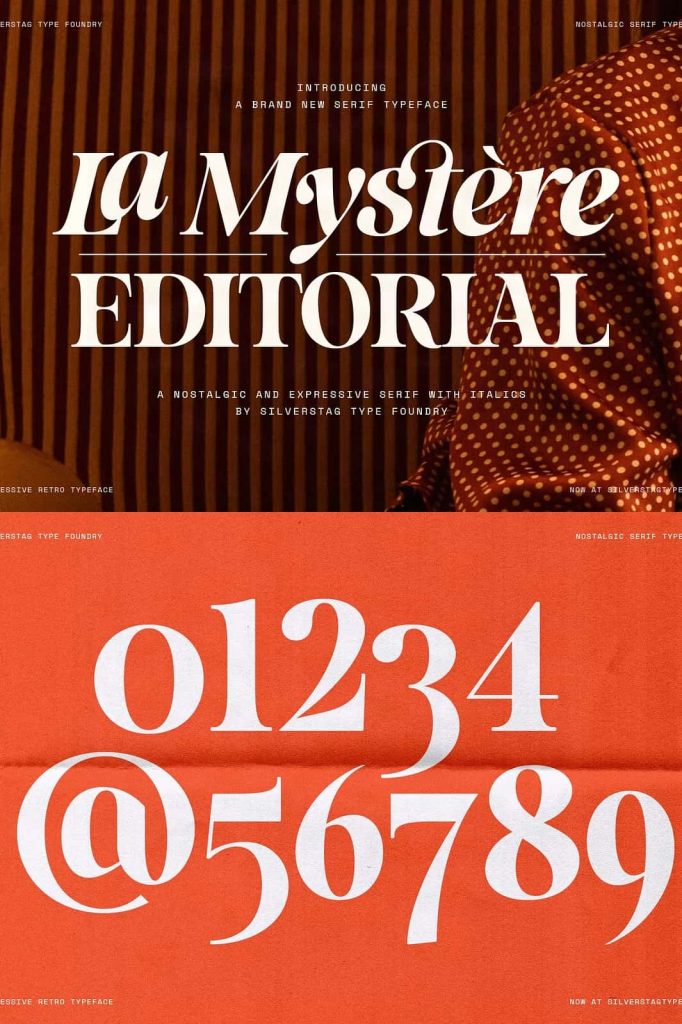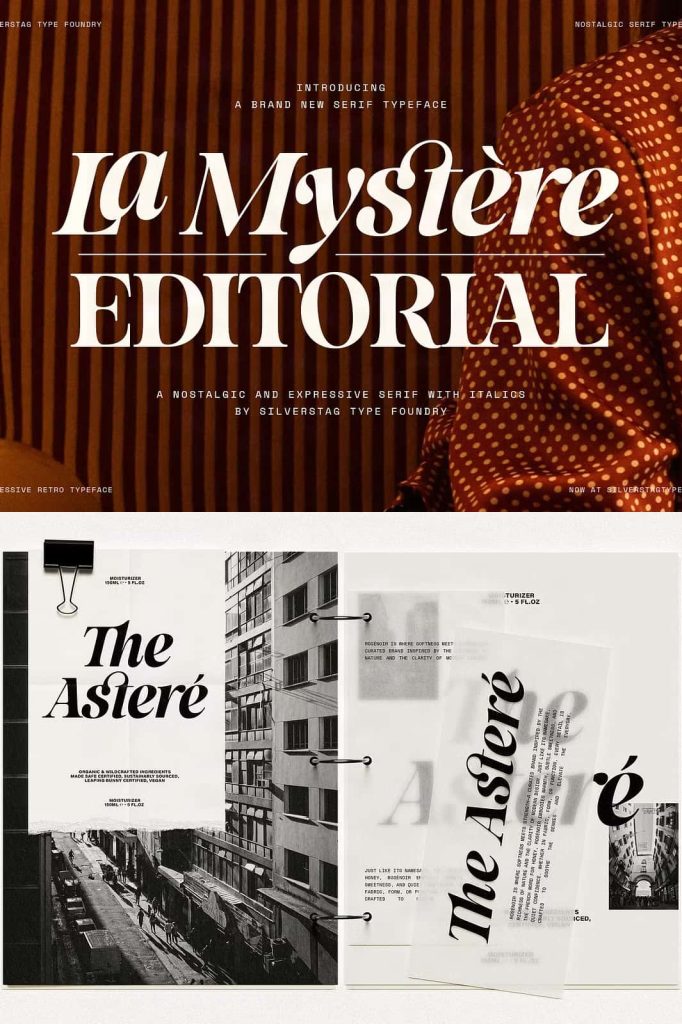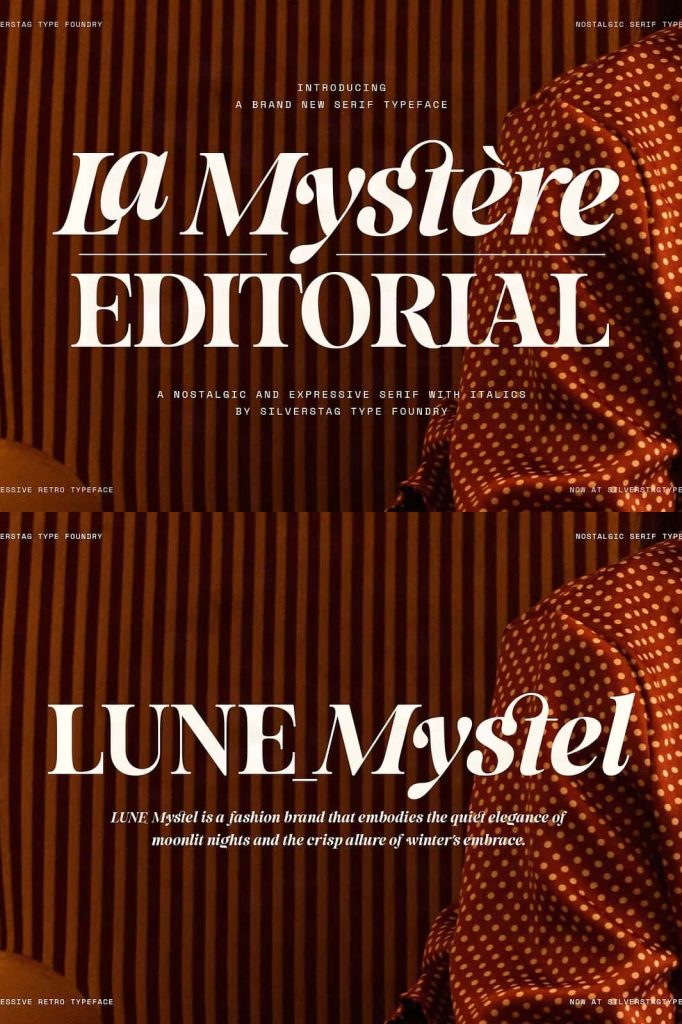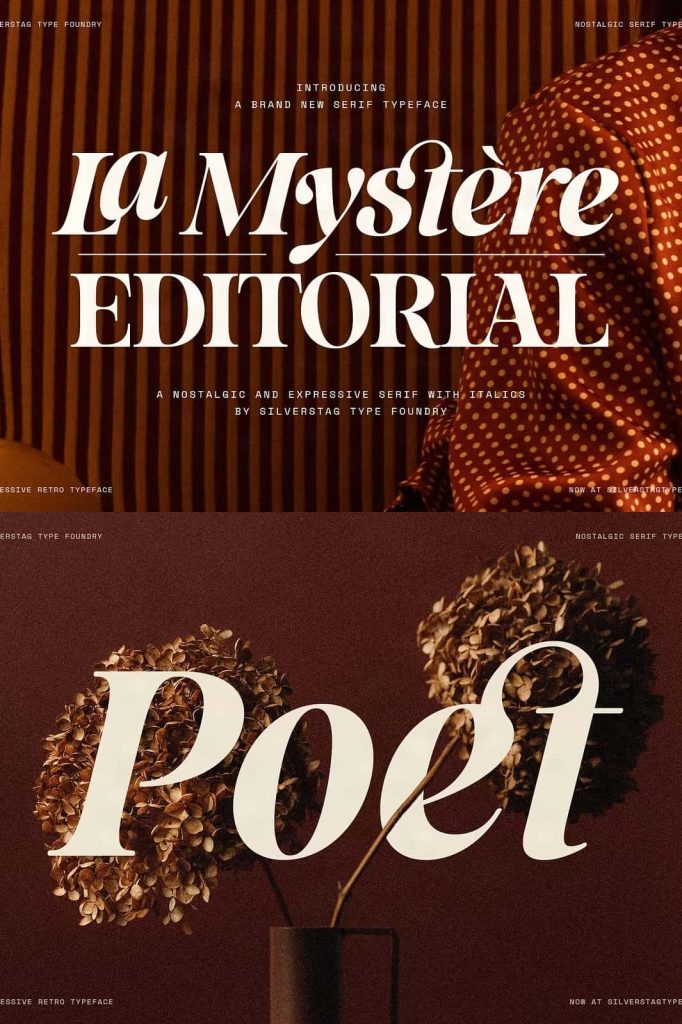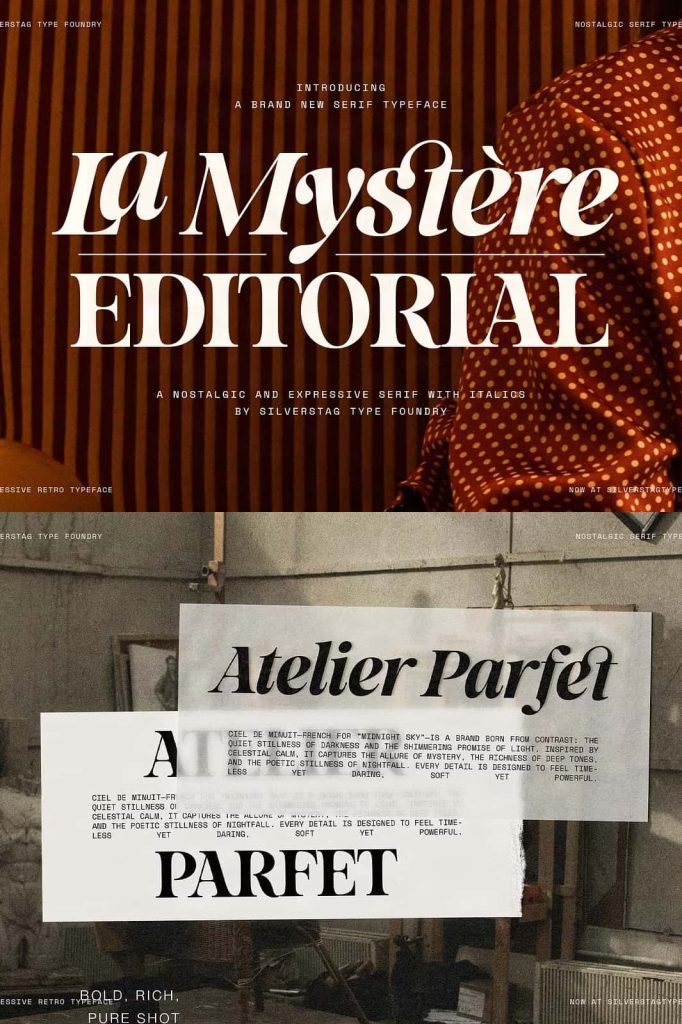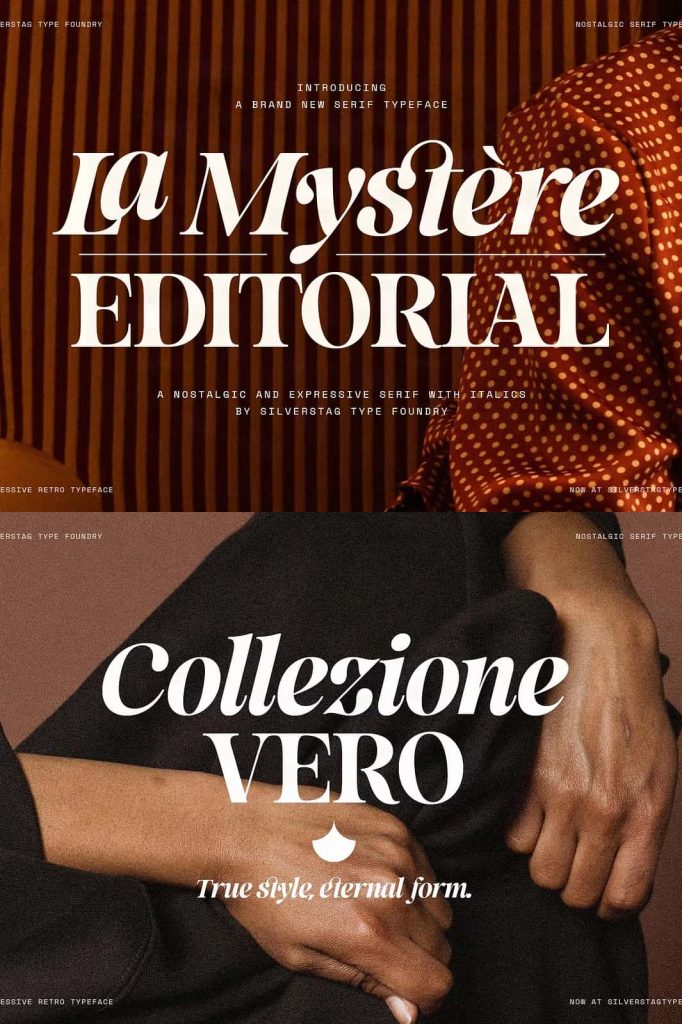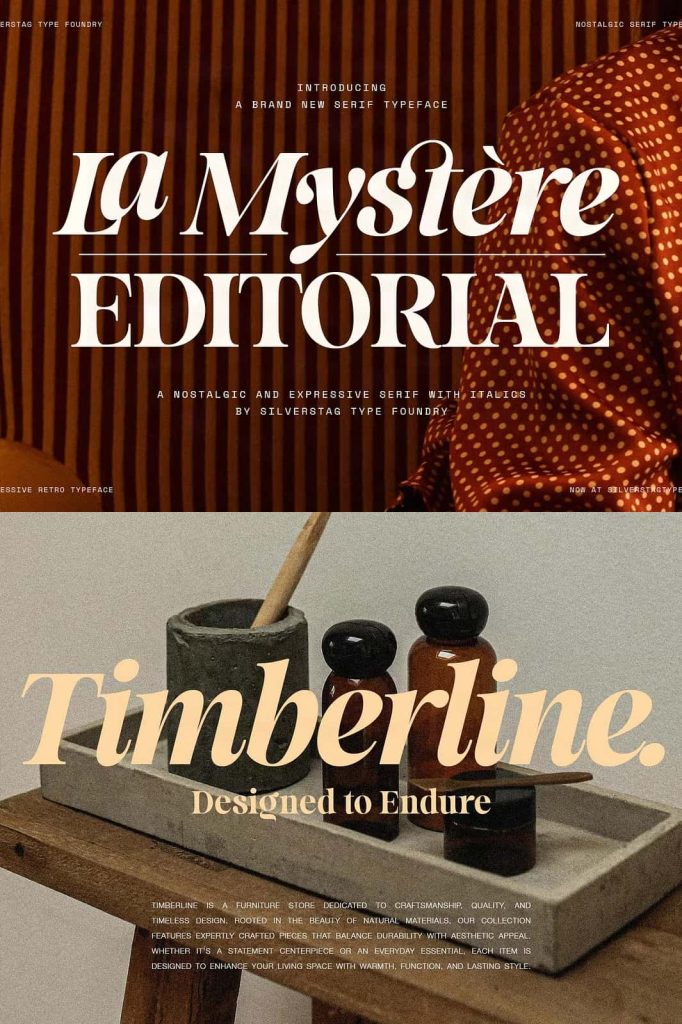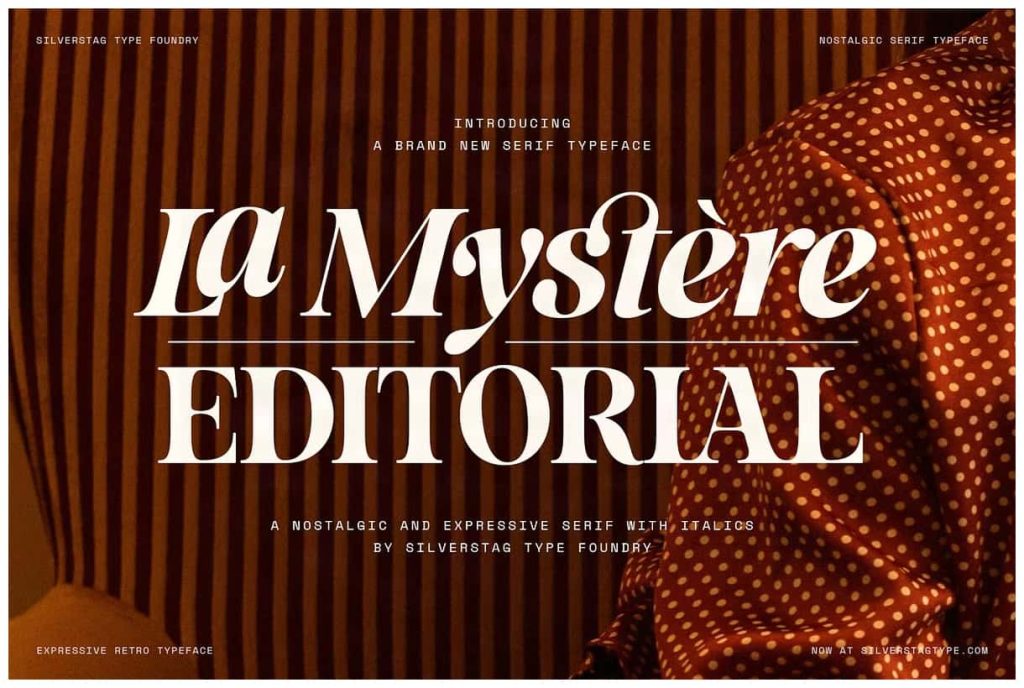
Meet SLTF La Mystère – a bold and graceful serif typeface designed with expressive curves, soft edges, and beautifully sculpted serifs. Crafted for designers who want to create refined, editorial-driven work, La Mystère blends classical inspiration with modern flair.